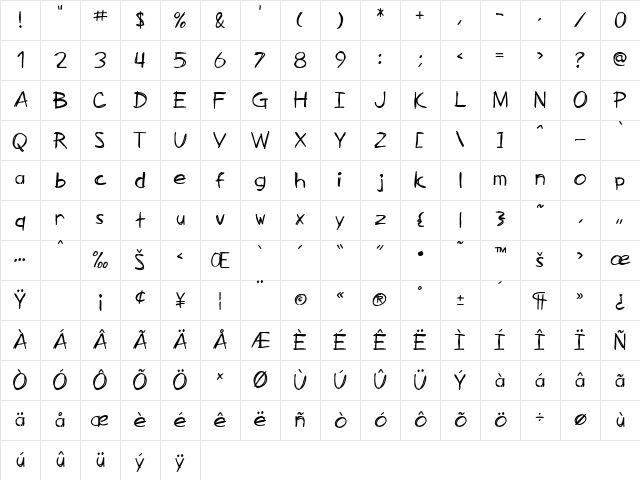
SF Zimmerman Regular
Design Context for SF Zimmerman
SF Zimmerman is a composed and adaptable typeface that performs quietly and consistently across a wide range of design contexts.